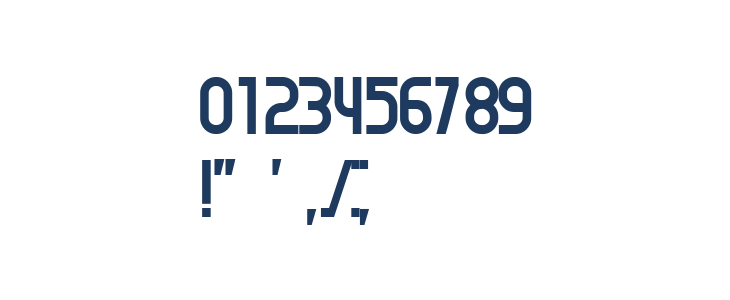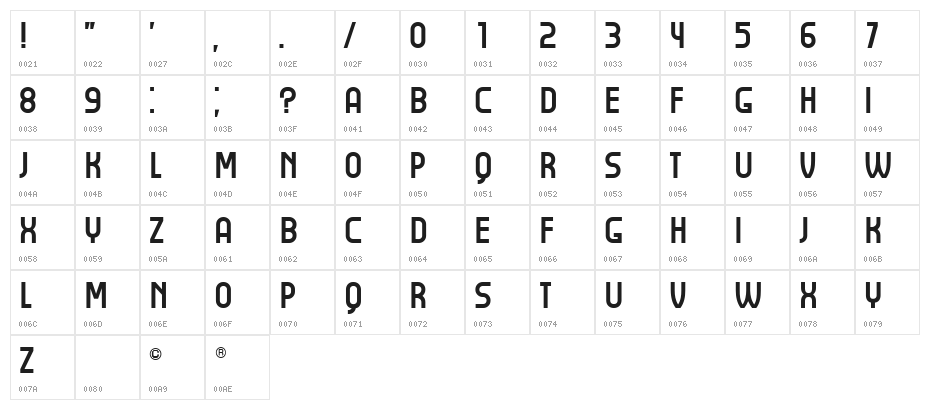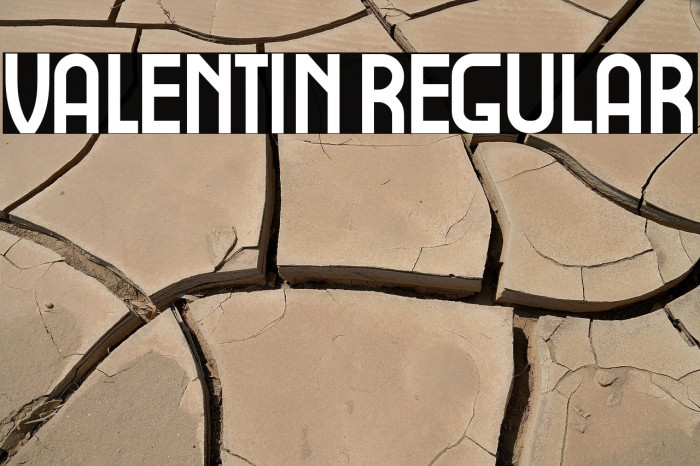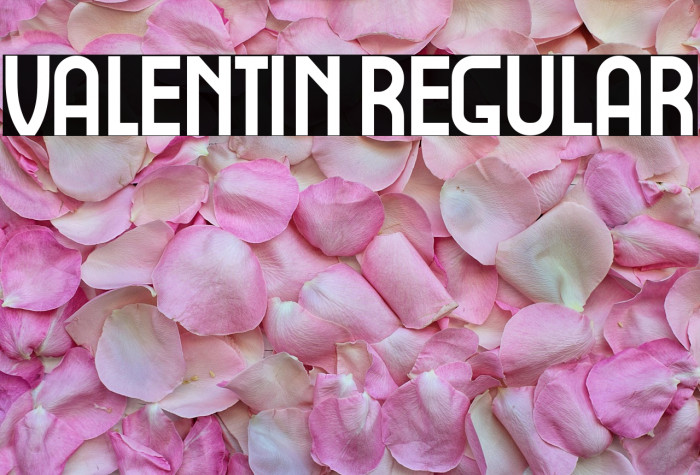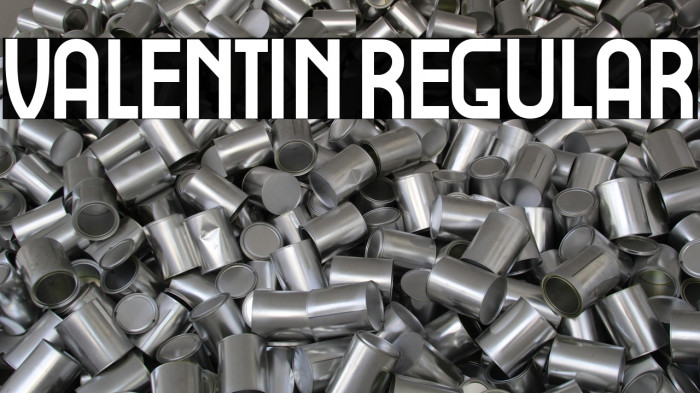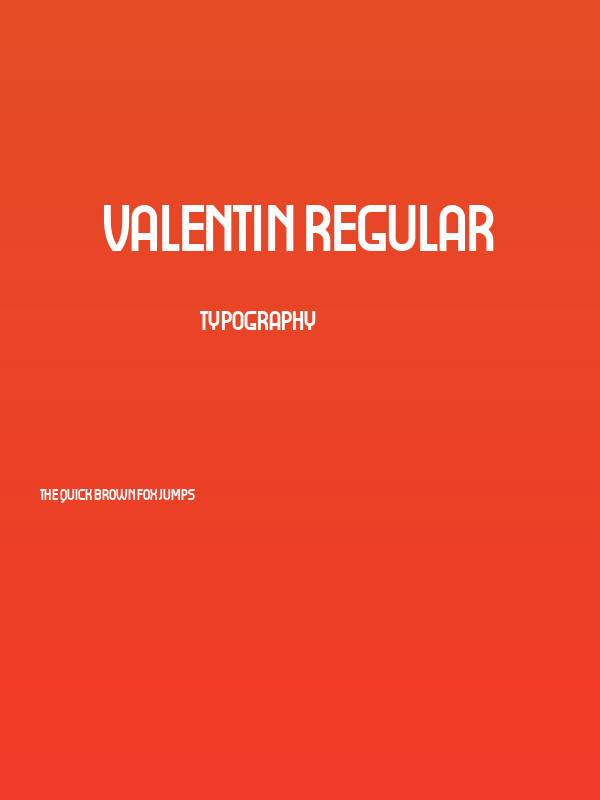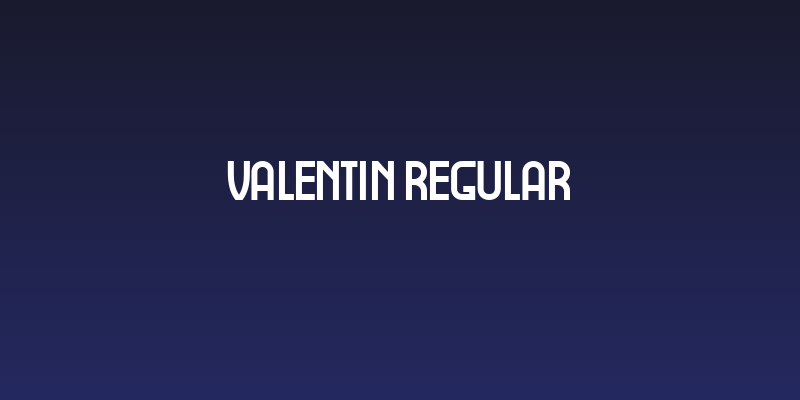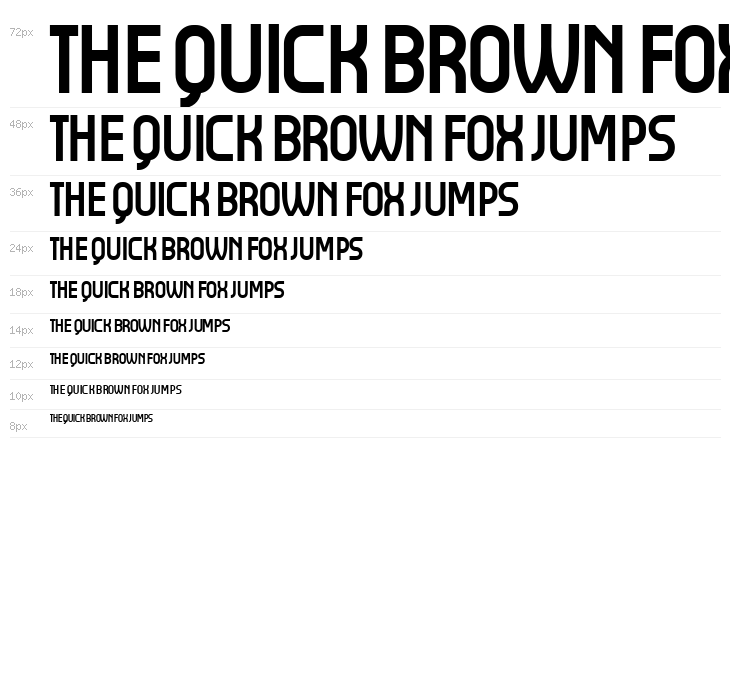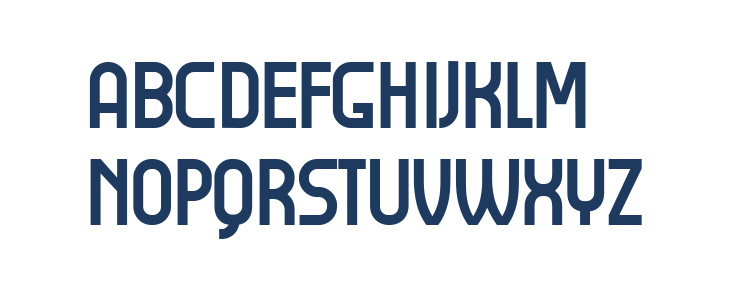
Valentin Regular Font
Valentin Regular Description
This font features a bold, geometric sans-serif style with a modern and clean appearance. The characters are uniform in width, creating a cohesive and structured look. The uppercase letters are prominent and assertive, while the lowercase letters maintain a consistent height, enhancing readability. The numerals are distinct and align well with the overall design, making them suitable for various applications. The special characters are crafted to match the font's bold and straightforward aesthetic, ensuring they integrate seamlessly into any text.
| Use Case | Headlines, Logos, Branding |
| Proposed Projects | Ideal for branding, advertising, headlines, and digital interfaces where a strong and modern presence is desired. |